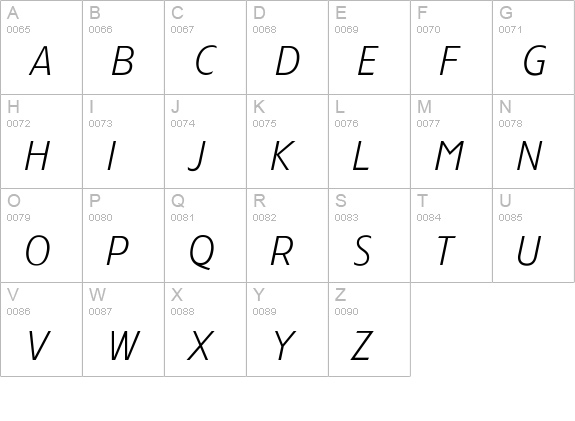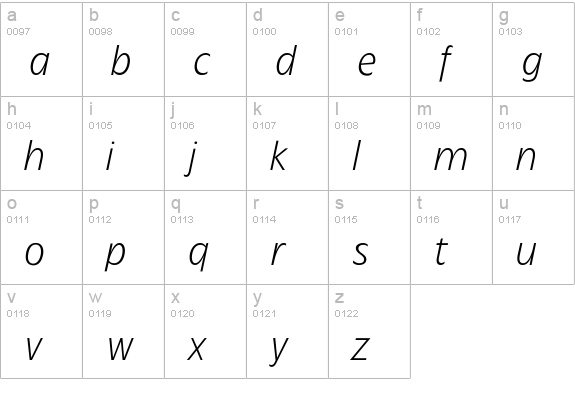
Introducing TFForever-LightItalic font, a stunning typographic masterpiece that seamlessly blends elegance and sophistication. This font exudes a sense of timeless beauty, making it the perfect choice for any design project that requires a touch of class. Crafted with meticulous attention to detail, TFForever-LightItalic showcases delicate and gracefully slanted letterforms. Its effortlessly flowing curves and subtle strokes create an enchanting visual rhythm, captivating the eye and adding a unique charm to any text. With its light and airy appearance, TFForever-LightItalic font embodies a sense of ethereal beauty, making it ideal for projects that aim to inspire and uplift. From wedding invitations to elegant branding, this font effortlessly elevates any design to new heights. One of the most remarkable aspects of TFForever-LightItalic font is that it is freely available to download at FontsMarket.com. This means that designers and creatives can easily access this exclusive font without any cost, allowing them to add a touch of sophistication to their projects without breaking the bank. Whether you're a professional designer or a hobbyist, TFForever-LightItalic font offers unlimited creative possibilities. Its timeless beauty and freely available nature make it a valuable asset in your font library. So why wait? Download TFForever-LightItalic today and let your designs shine with everlasting elegance.